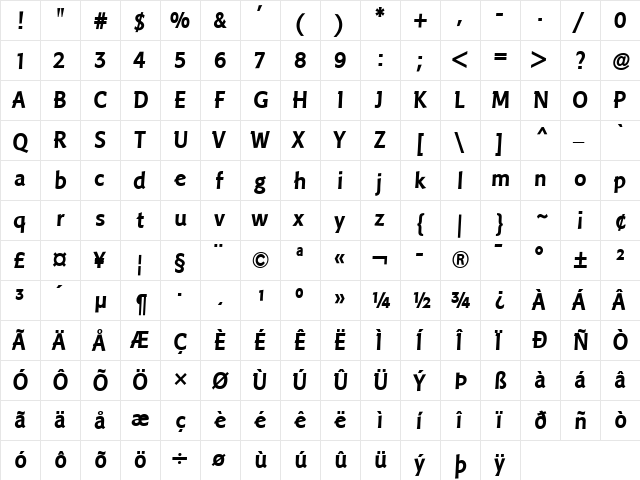
LTPisa Regular Bold
Design Context for LTPisa Regular Typeface
LTPisa Regular is a composed and adaptable typeface that performs quietly and consistently across a wide range of design contexts. The heavy weight commands attention and anchors typographic hierarchies.